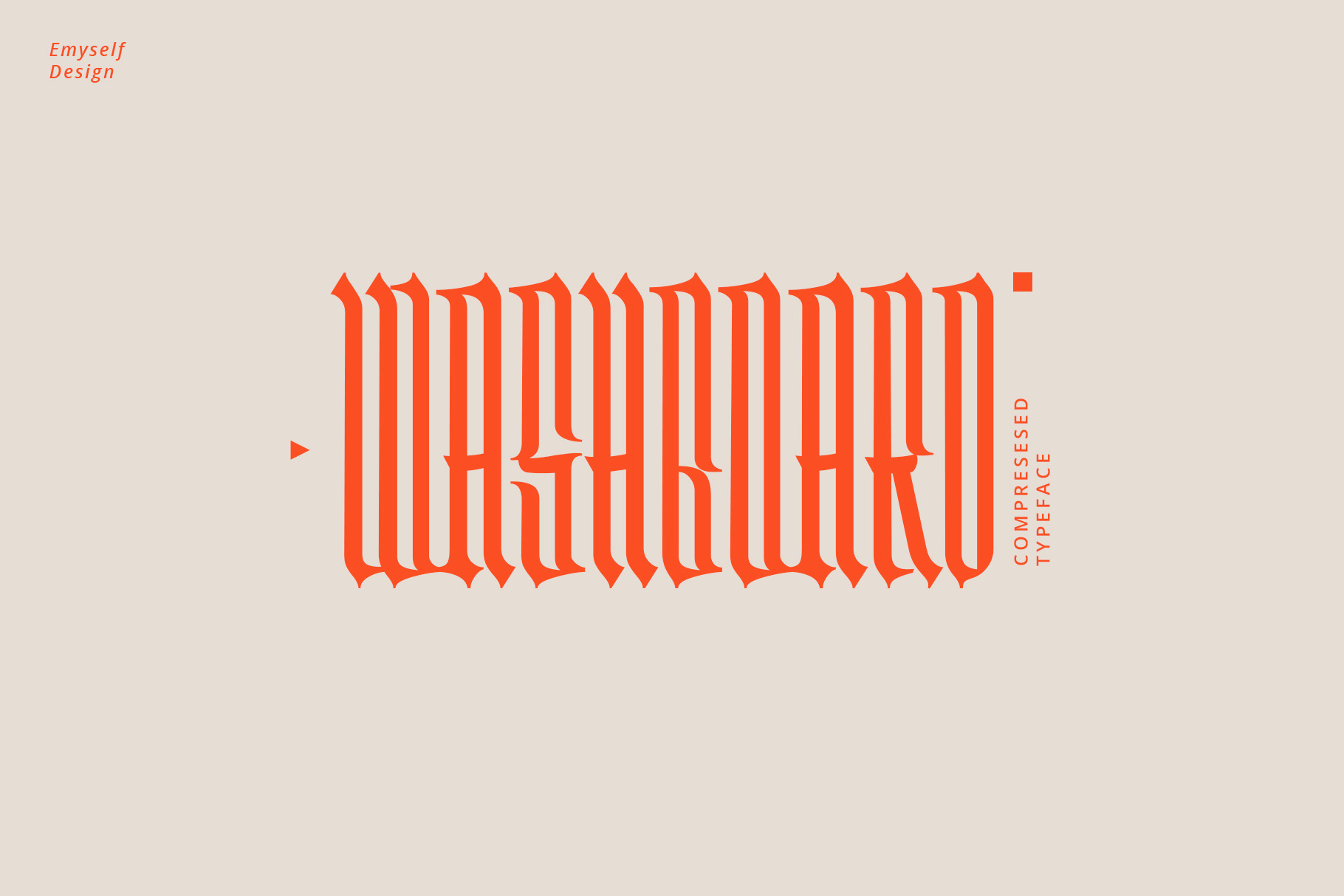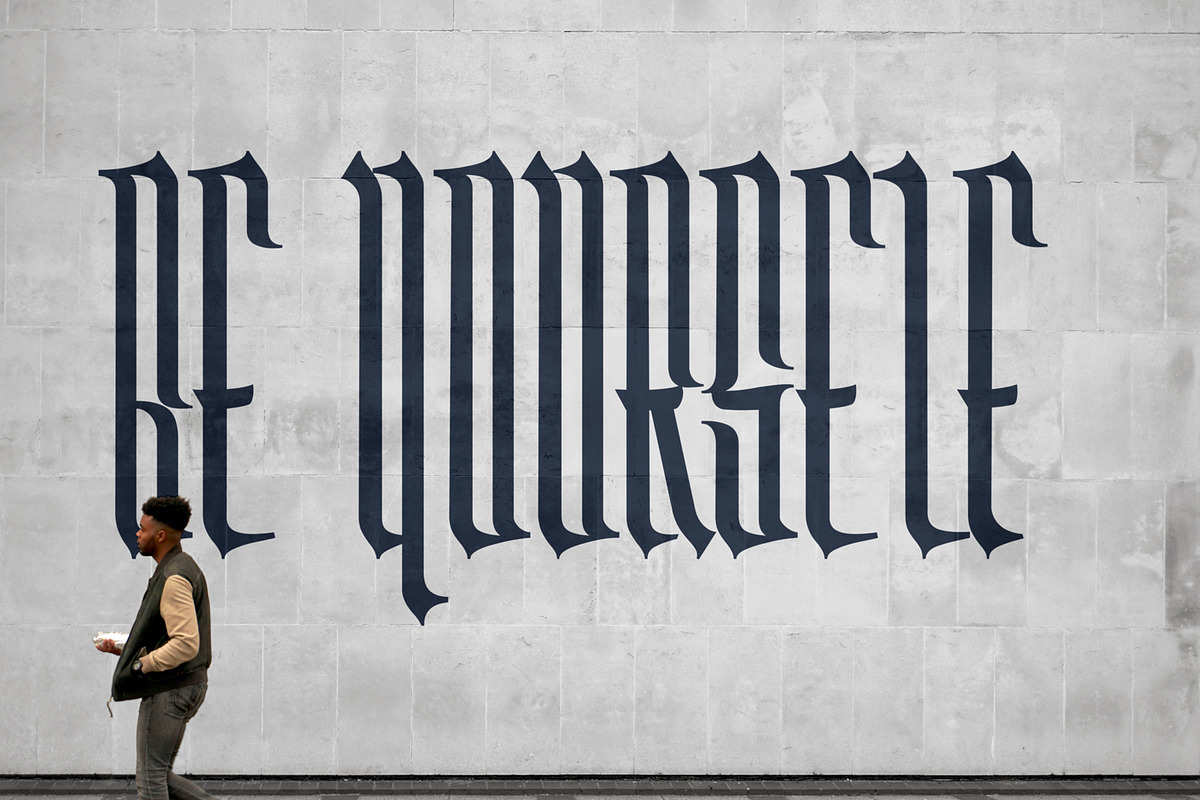
Washboard typeface
Washboard is a modern, minimalist, and compressed blackletter typefaces. This font is designed to be sleek to look minimalist and more modern, besides that there are alternative characters that make the font look more attractive.
This font is perfect for use as poster designs, branding, logos, apparel (t-shirts, jackets, etc.), cards, tattoo, or other design needs.